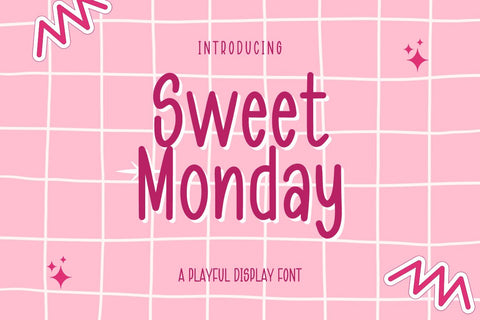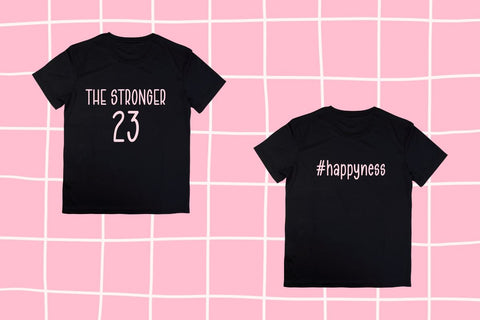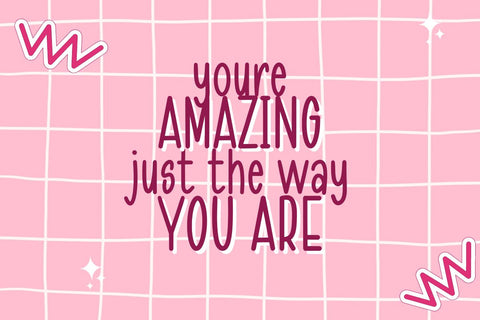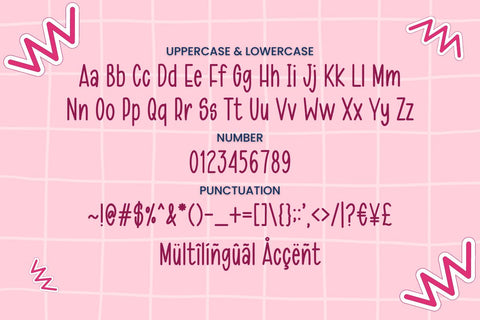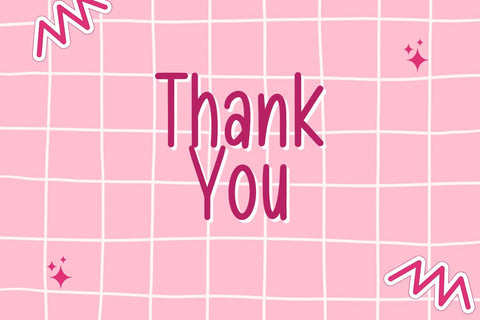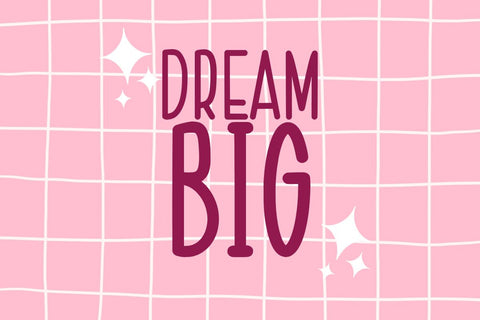
Sweet Monday - Playful Font
**Sweet Monday** is a Playful Display font that will make your designs look unique and fun. It's perfect for labels, quotes, posters, DIY projects, branding, packaging, greeting cards, websites, photography overlays, signs, window art, scrapbooking, tags and so much more!